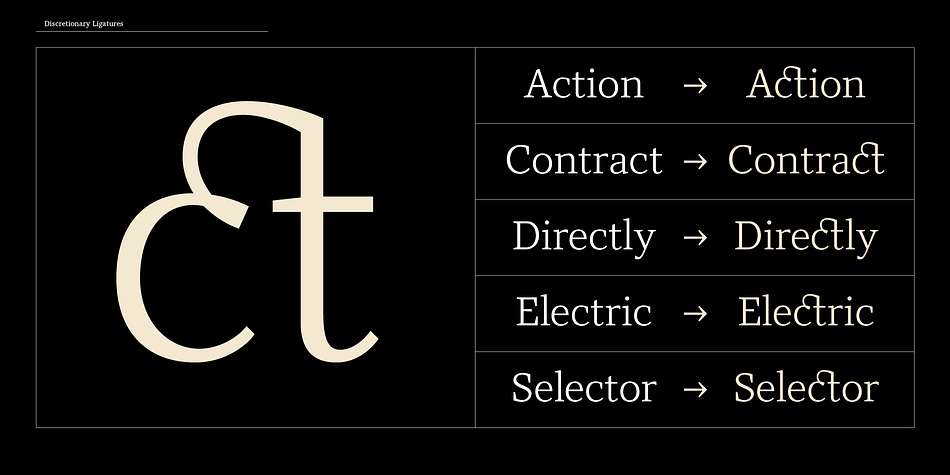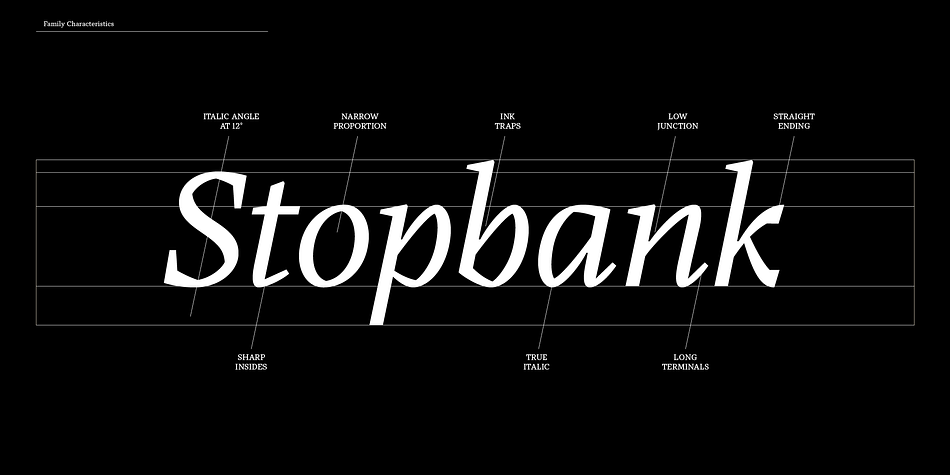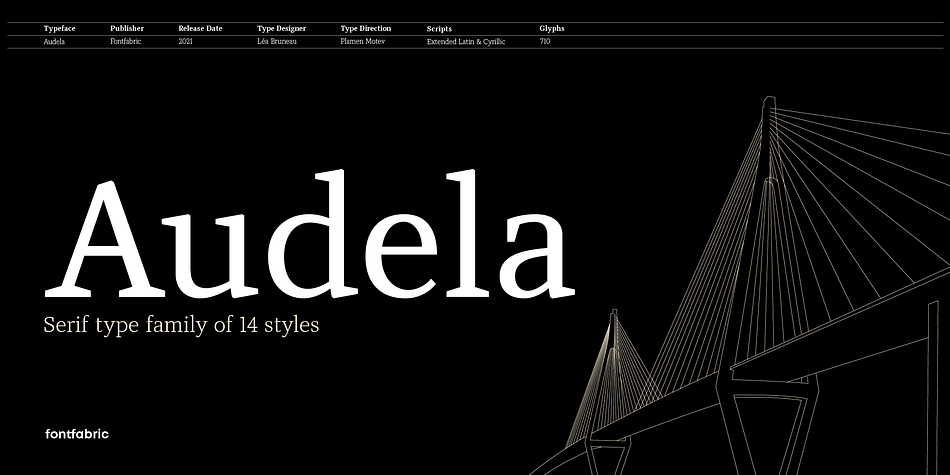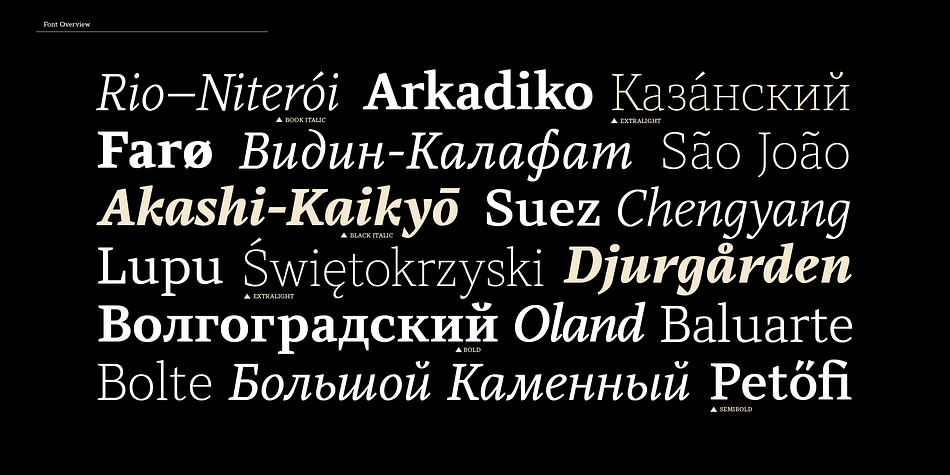
Audela
Designed by Plamen Motev and Léa Bruneau, Audela is a serif font family. This typeface has sixteen styles and was published by Fontfabric.
Surpassing traditional Antiqua, our new collaborative font family Audela emerges after overcoming time, national borders, language differences, cultural gaps, and professional challenges. Starting off as an exercise project of our very first intern Léa Bruneau in 2018, Audela slowly shaped into a full-fledged elegant serif typeface of 14 styles under the watchful eye of Plamen Motev, Fontfabric’s Type Director. Three years later, Audela is internally regarded as a breaker of limits earning its name from the French “au-delà,” meaning “beyond.” This new rising star features sharp serifs, flowing letterforms, advanced OpenType features, Extended Latin and Cyrillic support, to name a few.